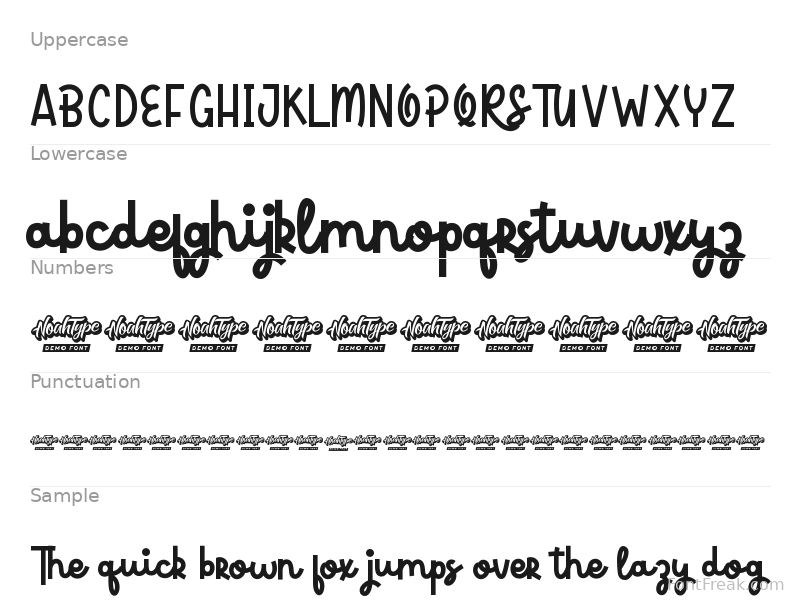
Royal Pastry Demo
The Royal Pastry Demo font by Noah Type is a delightful script typeface that captures a sense of playfulness and elegance. Designed with a charming, handwritten quality, this font features smooth curves and flowing strokes that create a warm, inviting atmosphere. Its moderate stroke weight and low contrast provide a balanced look, making it versatile for various applications. The generous spacing between characters enhances readability while maintaining a whimsical feel, perfect for adding a touch of personality to your projects.
This font shines in a variety of use cases, particularly in contexts that call for a personal touch. It's ideal for wedding invitations, where its romantic flair can beautifully convey the joy of the occasion. Additionally, Royal Pastry Demo is well-suited for restaurant menus, especially those focusing on artisanal pastries or desserts, as it evokes a sense of delightful indulgence. Graphic designers can leverage this font for branding elements, creating logos that stand out with a unique, handcrafted appeal. Content creators will find it perfect for social media graphics, where eye-catching typography can elevate engagement and aesthetic.
Targeting graphic designers, small business owners, and content creators, the Royal Pastry Demo font free download is an excellent choice for anyone looking to enhance their visual communication. Its playful yet elegant design is appealing to a broad audience, making it a go-to option for projects that require a blend of fun and sophistication.
What sets the Royal Pastry Demo font apart is its ability to infuse personality into any design while remaining easy to read. Its versatility and charm make it a valuable addition to any designer's toolkit, ensuring that your projects not only stand out but also resonate with your audience.